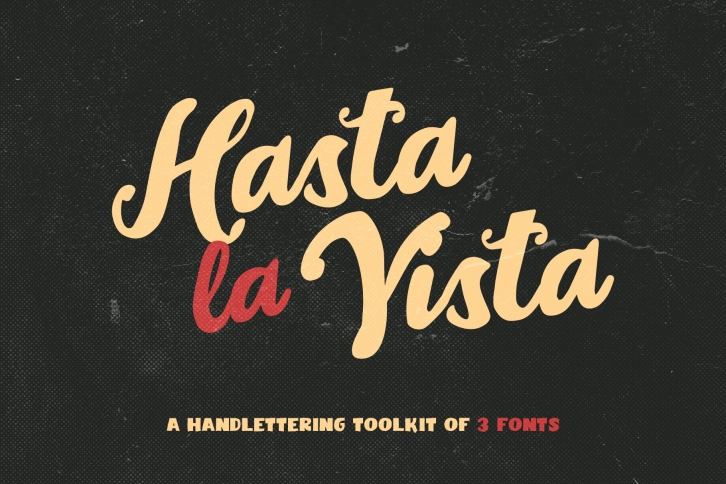
Hasta La Vista is a gorgeous font that was realeased on April 13, 2018. The font can be used in many style contexts and design environments. Perfect for invitations, magazines, websites, logos, and more! It was designed by Karen Dunn and the file size is 14.42 MB. Thanks for checking out this font!